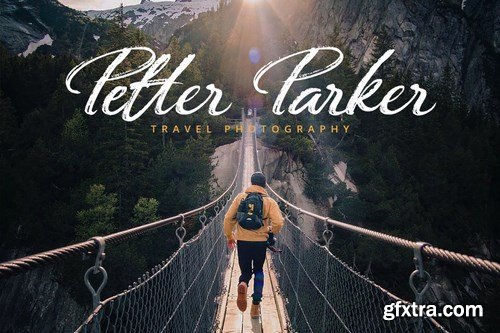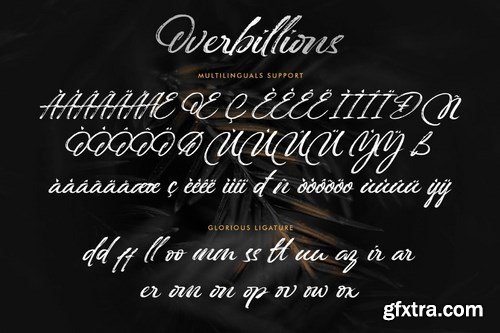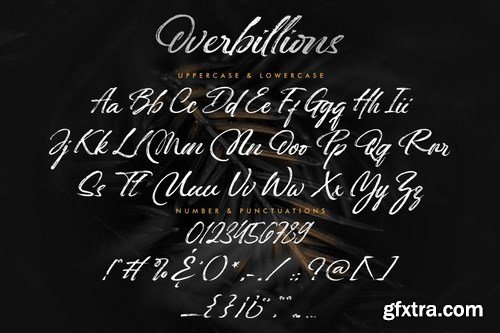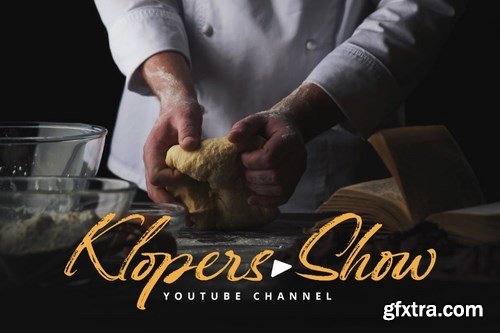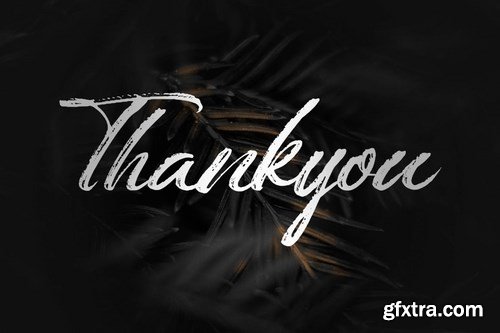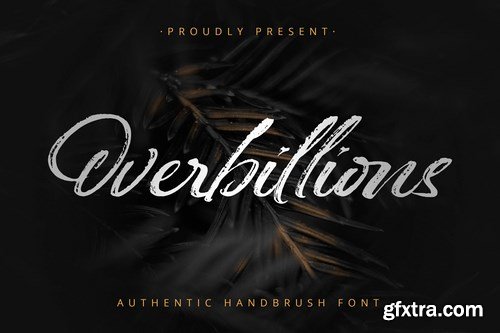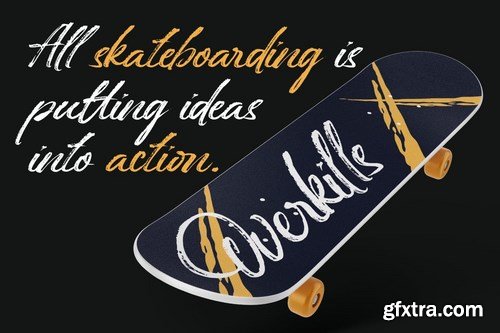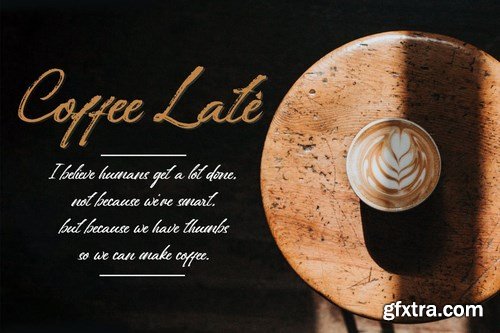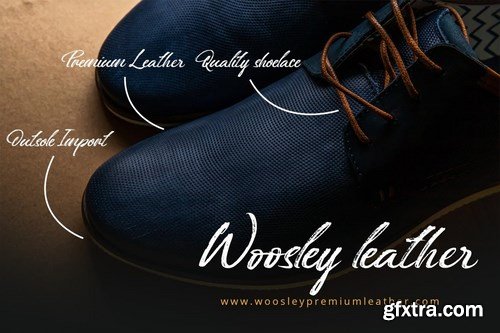
Introducing Overbillion - Brush Script is a Authentic brush script that is written casually and quickly. Letters are made with brushes on paper. Then scanned and carefully drawn into vector format. That is why Overbillion has charming, authentic and relaxed characteristic more natural look to your text with a more natural look to your text. You can activate Ligature OpenType panel, Overbillion Perfect for designs,branding projects, Logo design, Quotes product packaging
Standard glyphs
Ligatures